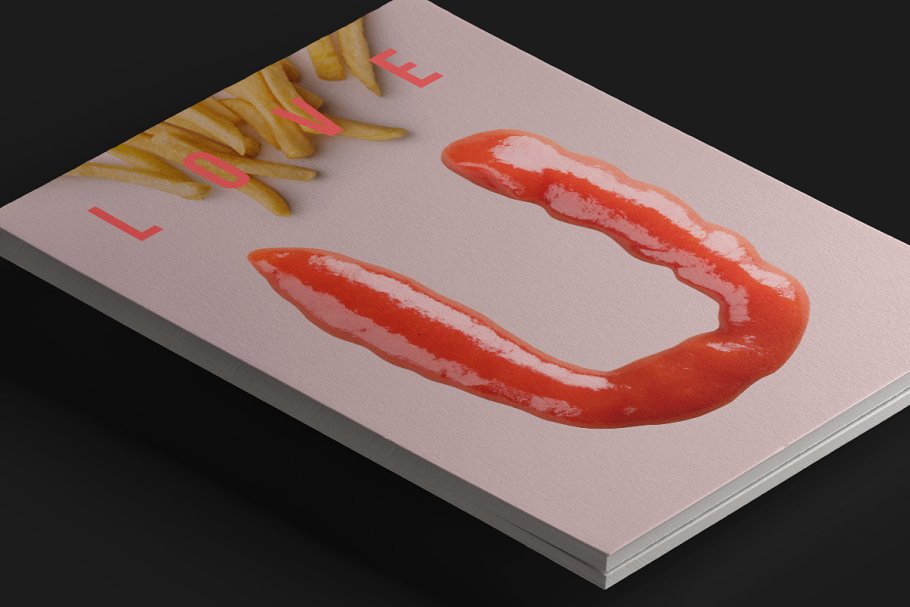
Looking for the perfect font to add some sizzle to your BBQ restaurant's branding? Look no further than Ketchup Font, the latest creation from renowned font designer Vladimir Loginov. Ketchup Font is a high definition OpenType-SVG font that will make your text pop with vibrant, eye-catching color.
This font features uppercase characters, numerals, and basic punctuation, all rendered in stunning detail with a draw height of roughly 800 pixels. Plus, with 74 individual PNG files included, you'll have all the letters, numbers, and punctuation you need to create your perfect text layout.
But Ketchup Font isn't just about stunning visuals. This font also offers versatility and convenience, with all characters included as individual PNG files for easy customization. And while extended punctuation and language support are not included in the font files, all punctuation characters and the most commonly used accents are included in the PNG letter set.